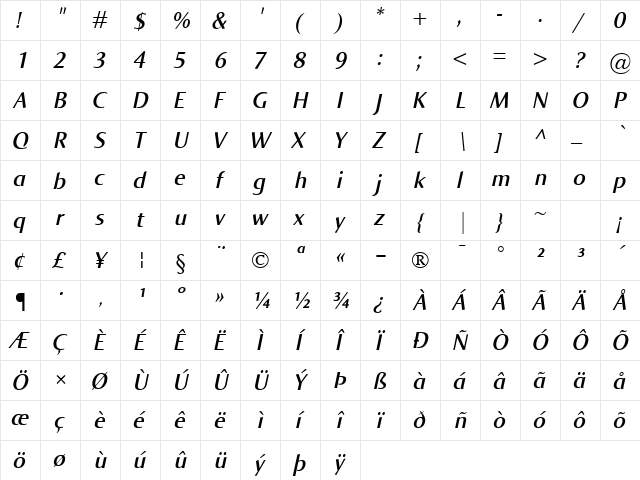
Norma SemiBold Italic
Design Context for Norma SemiBold Typeface
Norma SemiBold offers clean, dependable letterforms without strong stylistic allegiance, making it a practical choice for designers who need flexibility. The slanted form adds forward momentum and visual energy. Its bold stroke weight gives it real presence on the page.
Pro Tip: Use Norma SemiBold for emphasis, pull quotes, and subheadings where its slanted energy can add rhythm to the layout.